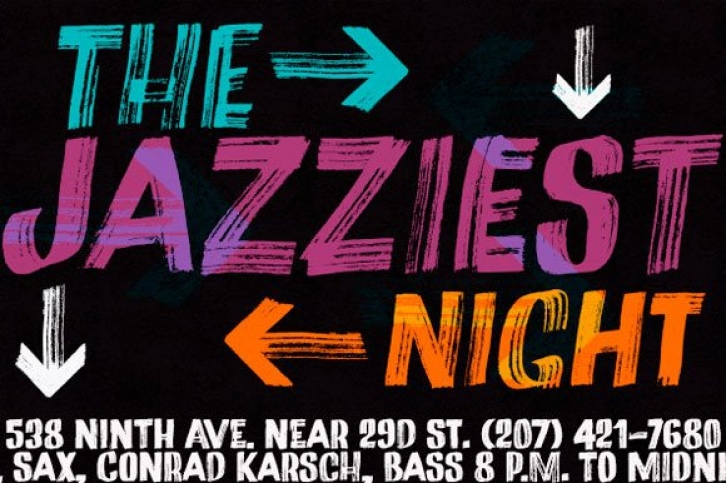
This expressive face was drawn with a dry chisel felt-tip marker, resulting in two​ ​striking, detail-rich fonts.
Beyond its remarkable face, Marker Aid is a generous ​one​​, packed with 4 alternates for each letter, 2 for each number and yet some handy ornaments for creating a convincing - and rather cool - organic look. It comes ​equipped with OpenType features to instantly cycle the ​alternate ​glyphs and access stylistic alternates and ornaments.
Marker Aid is available in two cuts, upright and oblique​, for added flexibility.